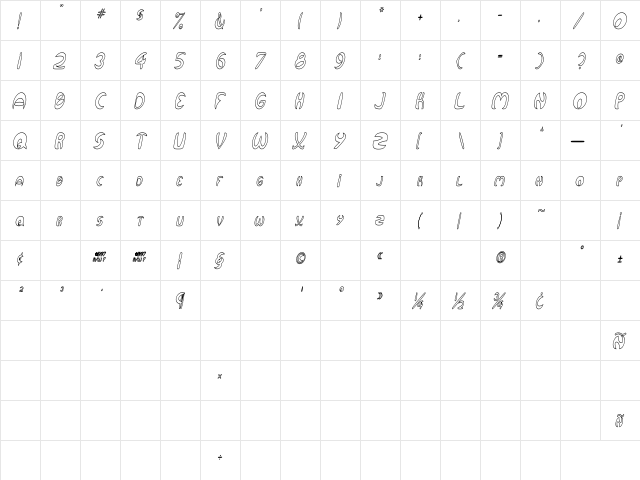
Qurve Hollow Thin Italic
Design Context for Qurve Hollow Thin Typeface
Qurve Hollow Thin offers clean, dependable letterforms without strong stylistic allegiance, making it a practical choice for designers who need flexibility. Its italic angle brings a sense of urgency and motion to the letterforms. Its slender proportions lend an understated elegance to any composition.